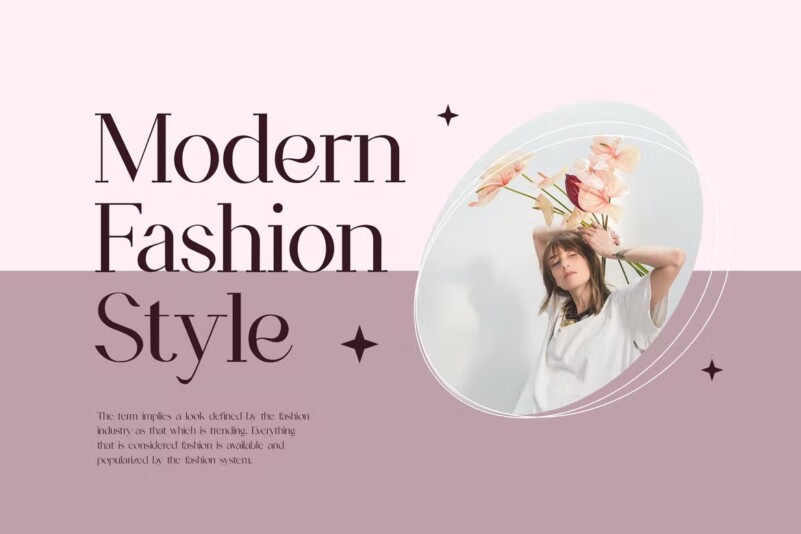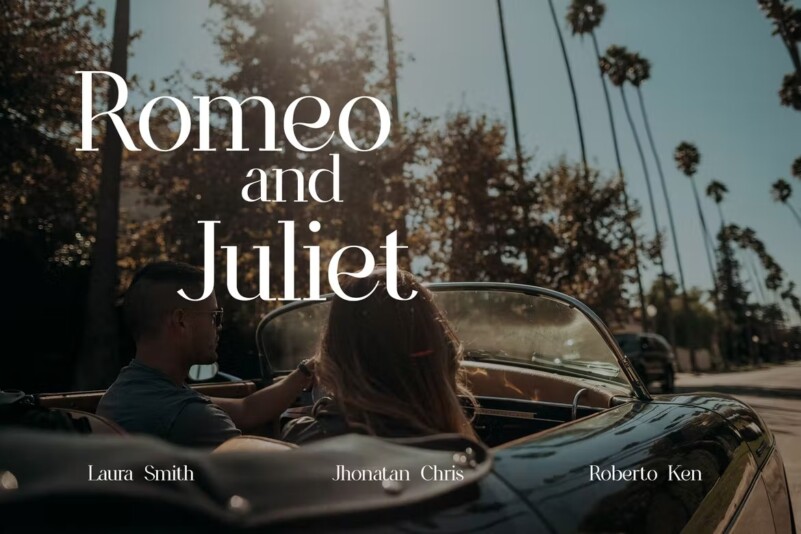
Regardant Luxury Serif Font
This is our new product, the name is Revoir Luxury Serif Font . A modern Serif font that is beautiful, classy, ​​elegant and modern. This font is perfect for a wide variety of projects, such as signature, stationery, logo, wedding, typographic quotes, magazine or book cover, website header, apparel, branding, packaging design, etc. Additionally, fashion-related branding or editorial design exhibits qualities that are both masculine and